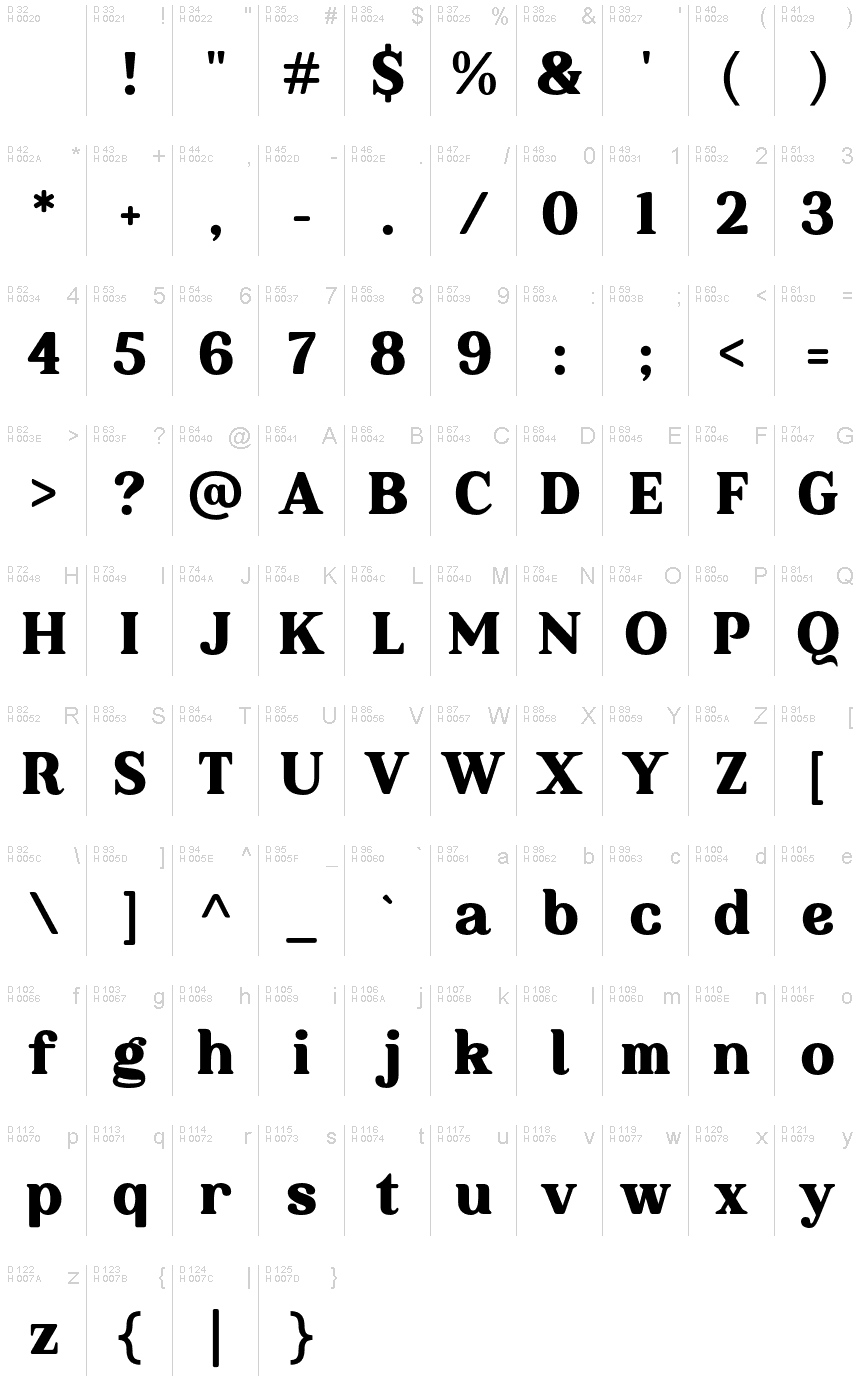
PonziHat-Regular
Ponzi Hat is a bold serif font designed by Faqih Fawaji, perfect for projects that require a touch of sophistication and elegance. With its thick and dramatic strokes, Ponzi Hat commands attention and makes a statement. This font is ideal for branding, editorial designs, packaging, logos, and more. Its classic style has a timeless appeal that will never go out of fashion. Whether you're designing for a luxury brand or creating an eye-catching poster, Ponzi Hat will add an element of grandeur to your project. So why settle for ordinary when you can make an impact with Ponzi Hat?